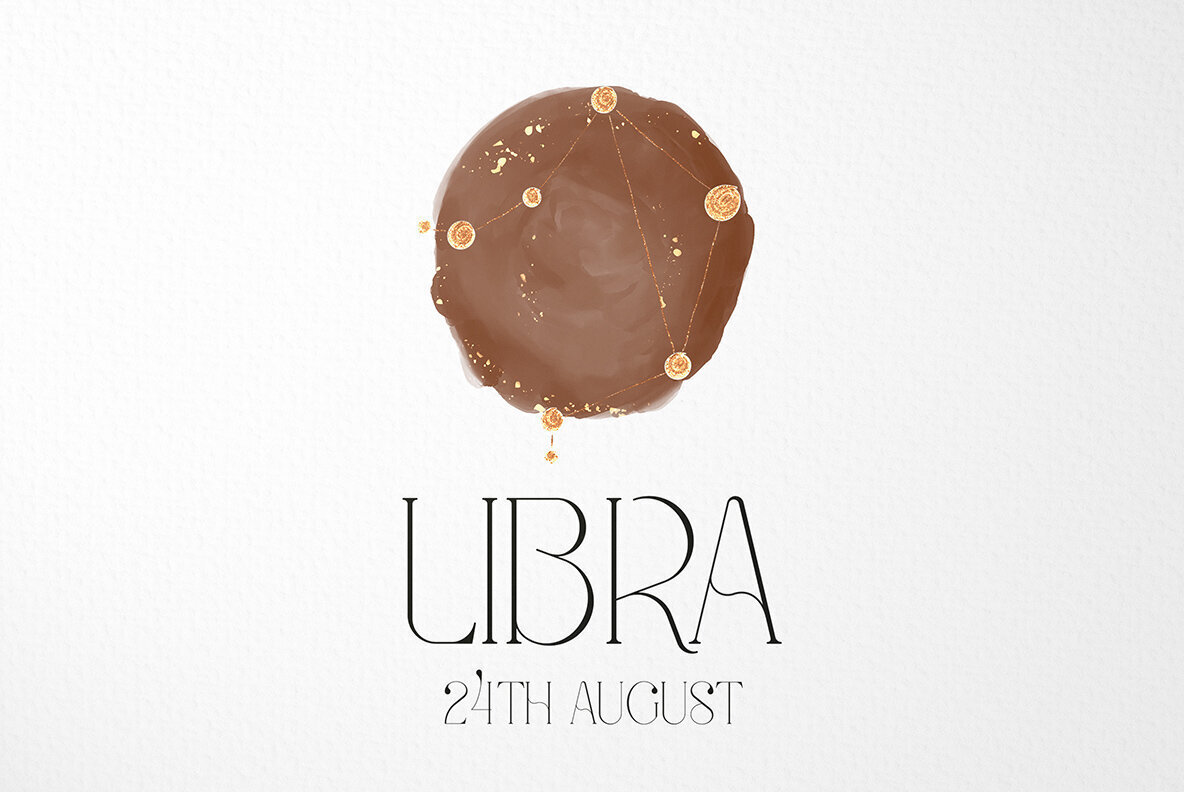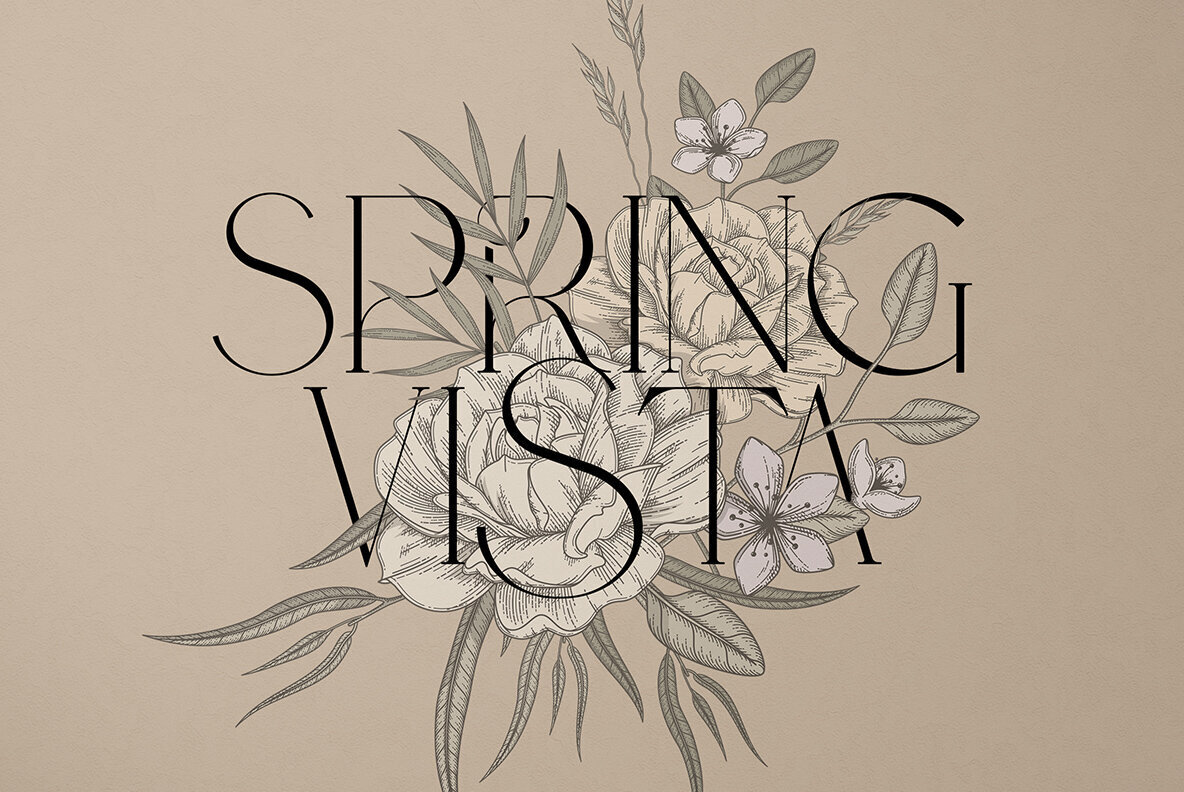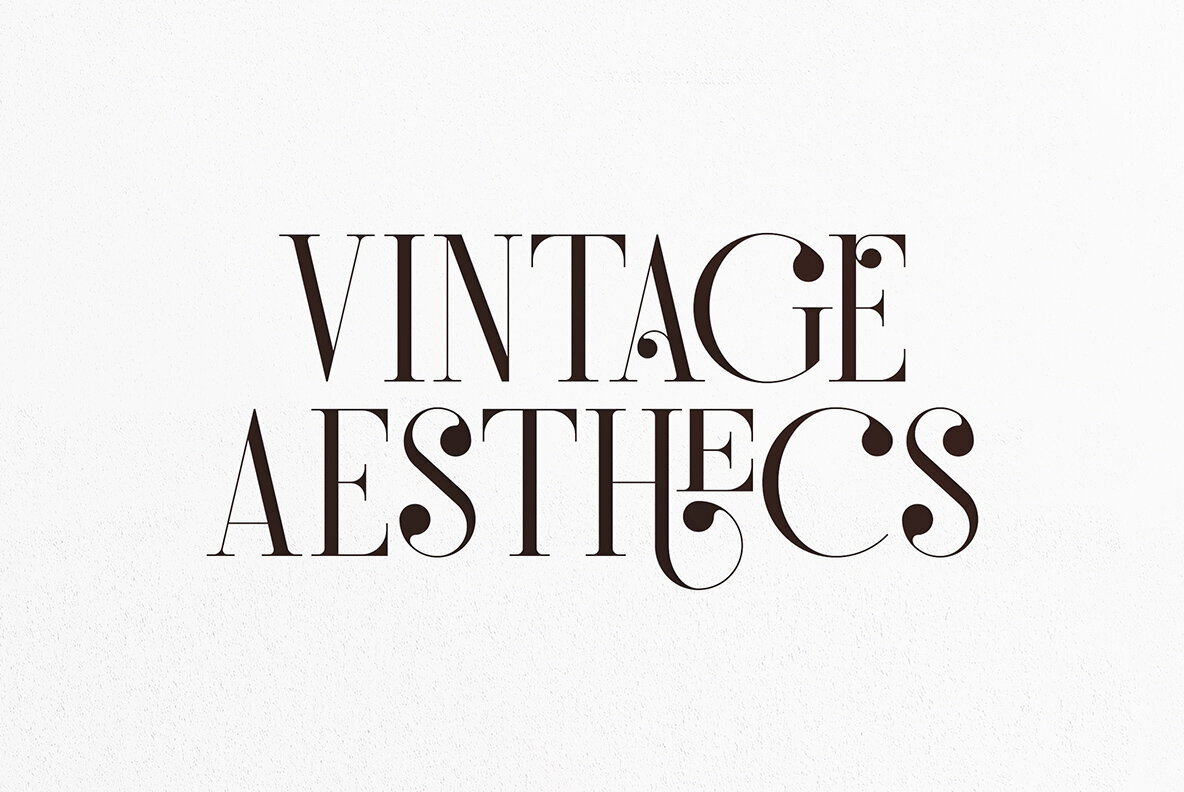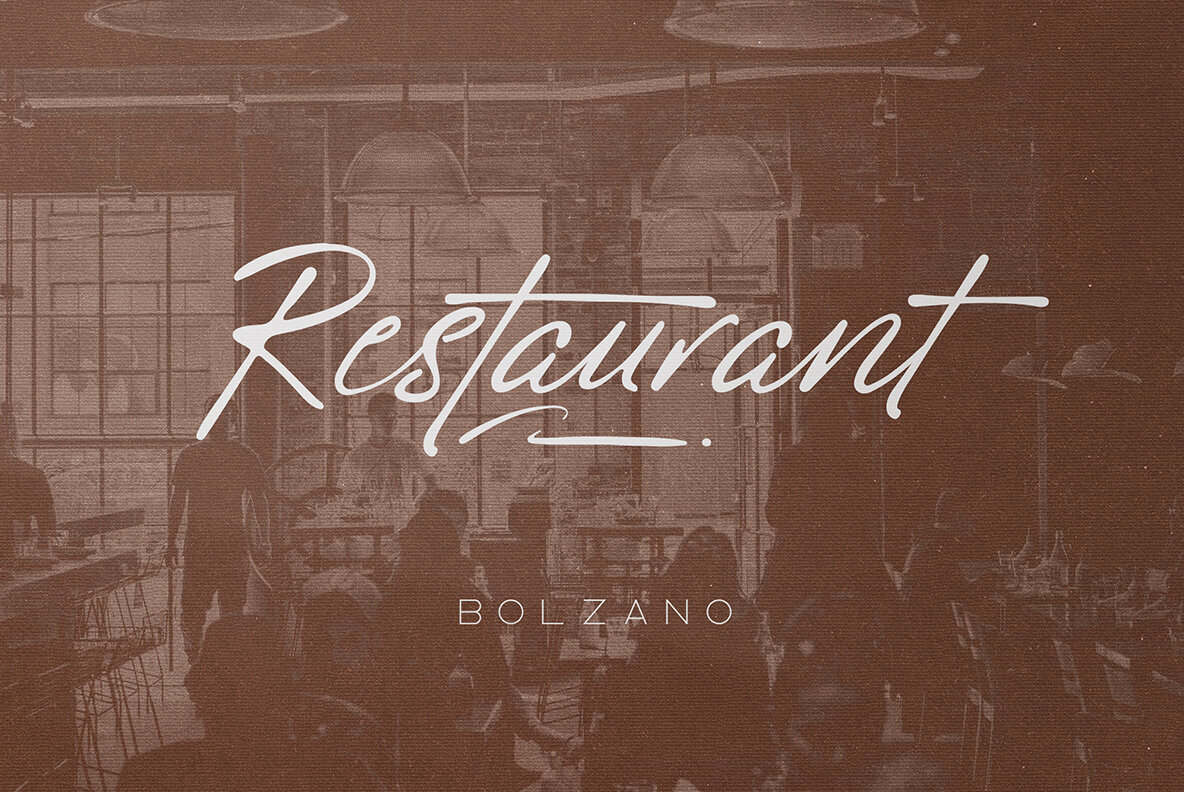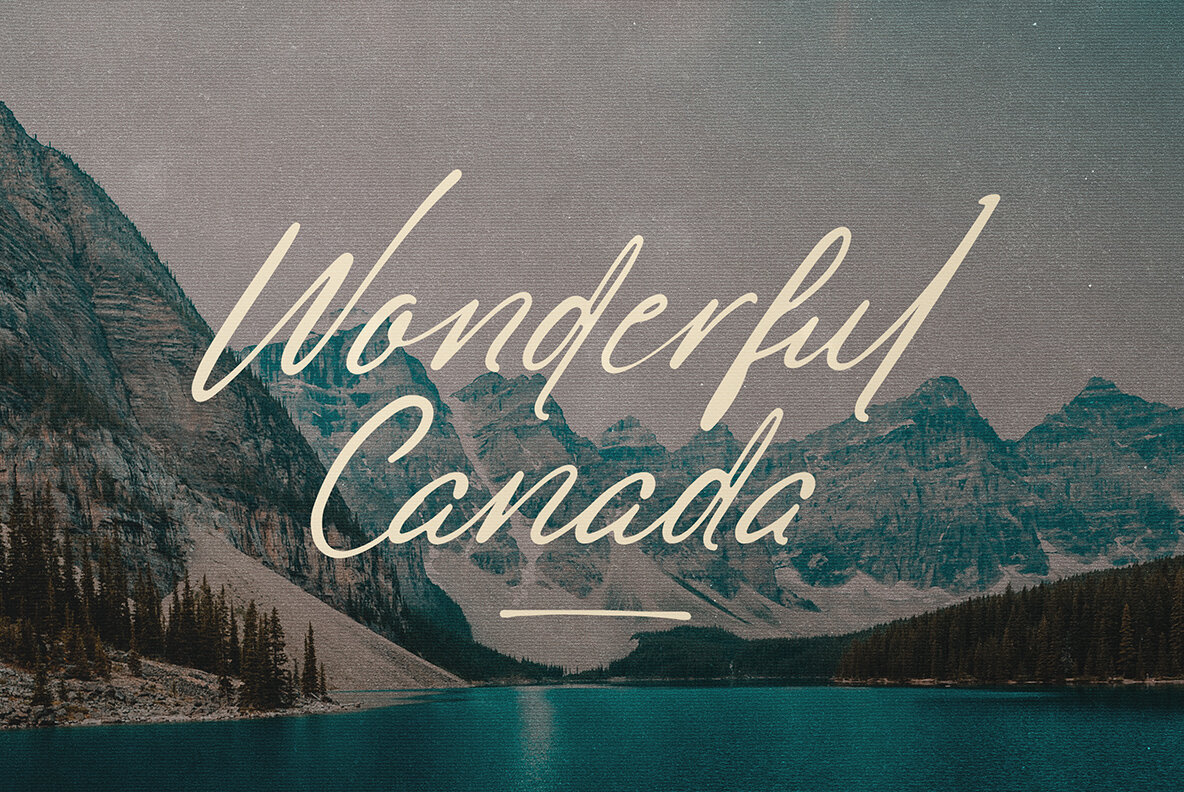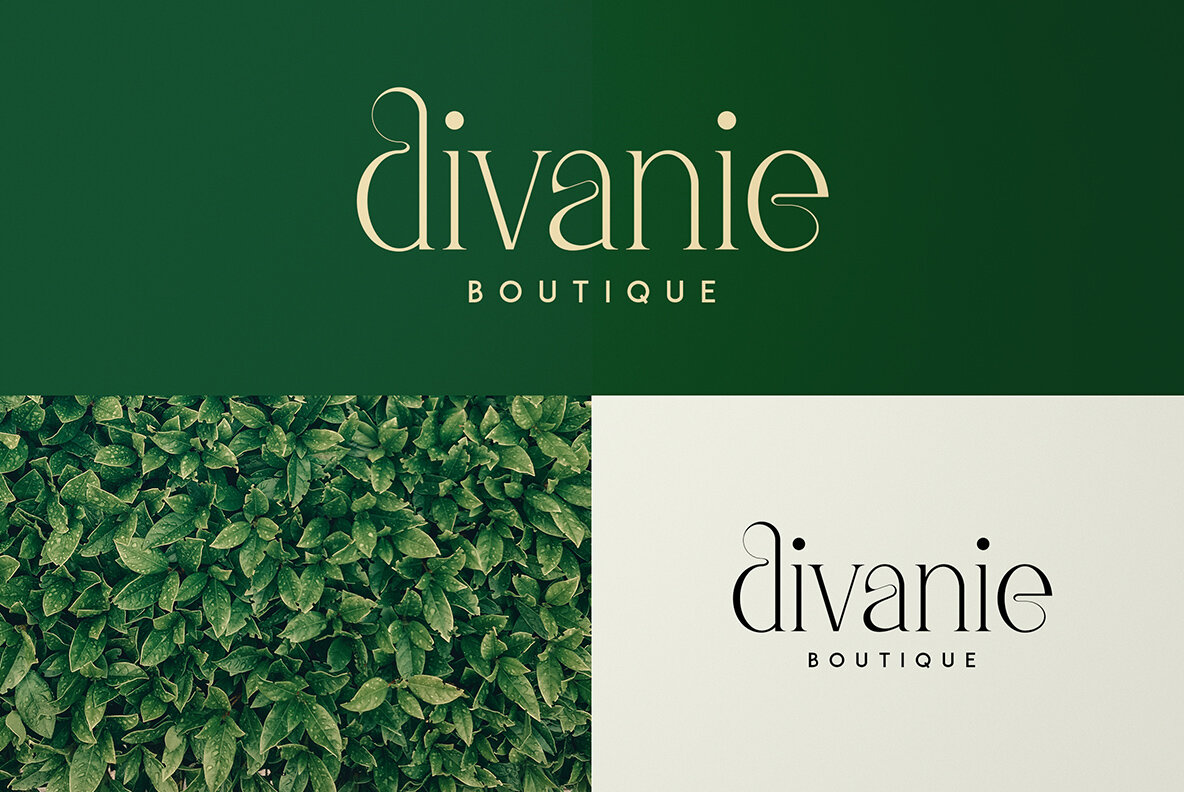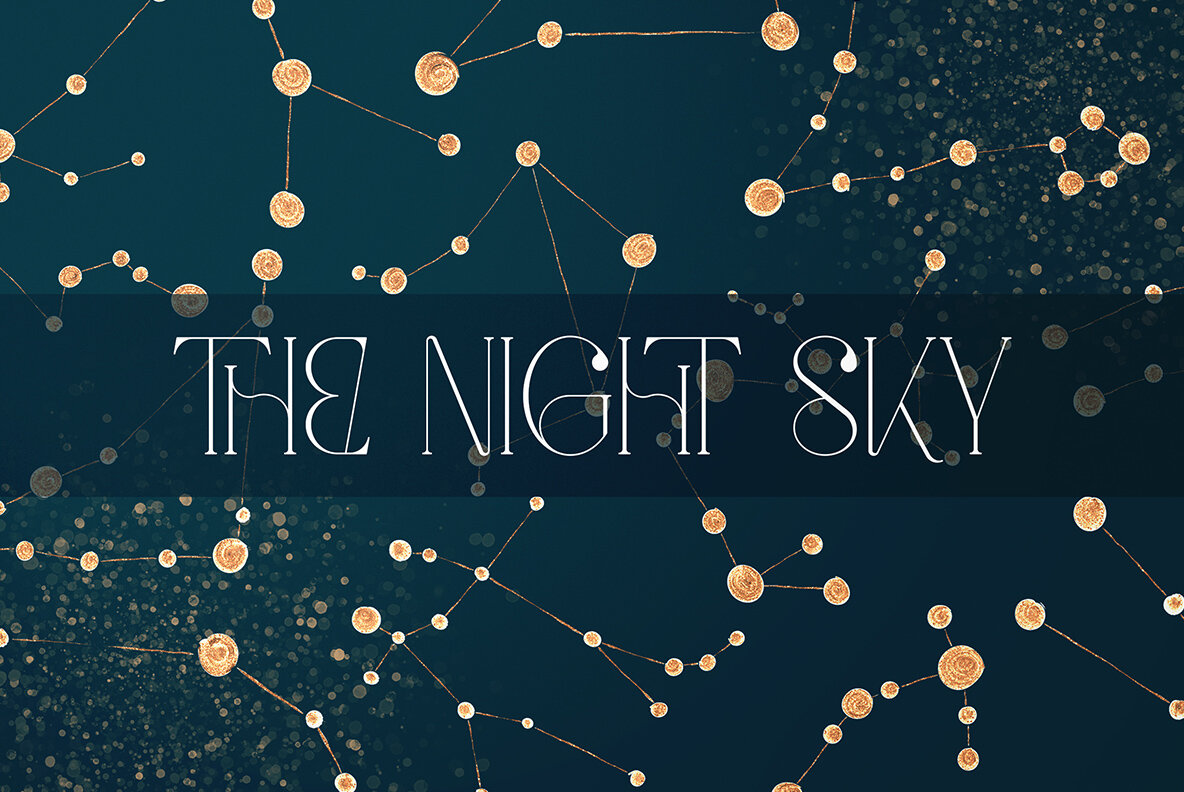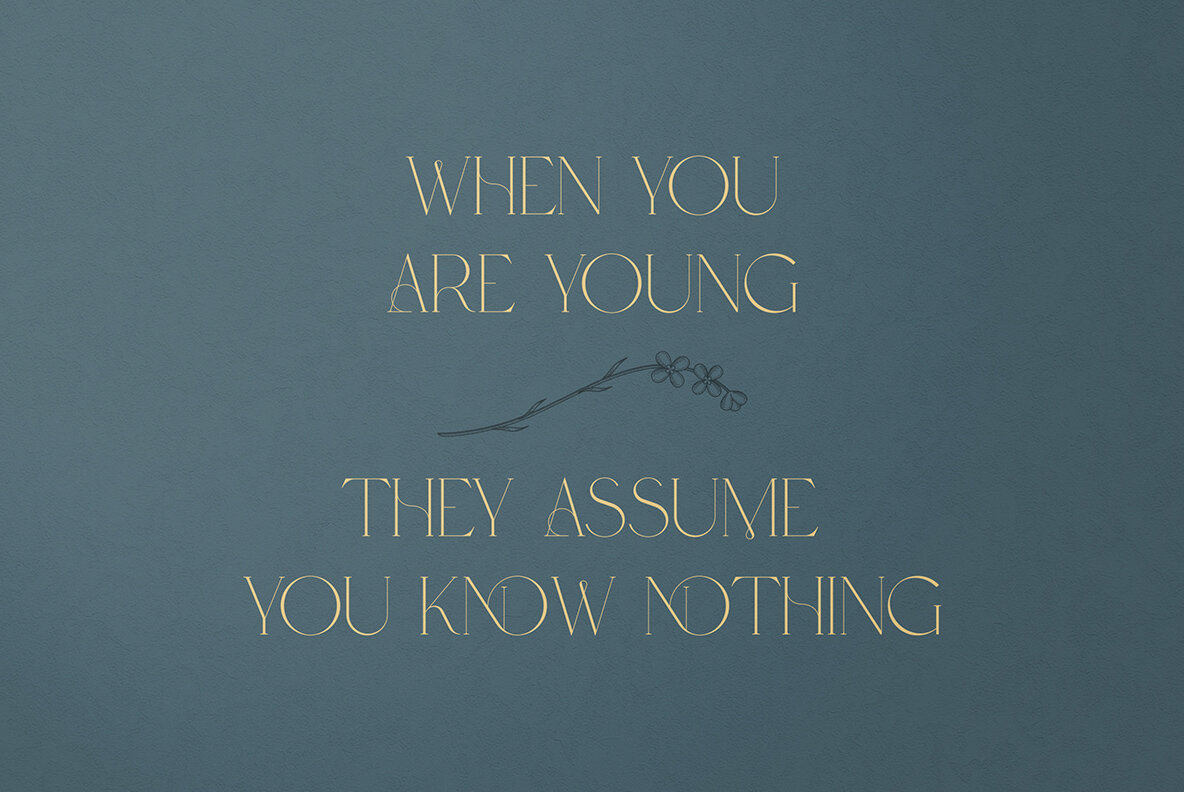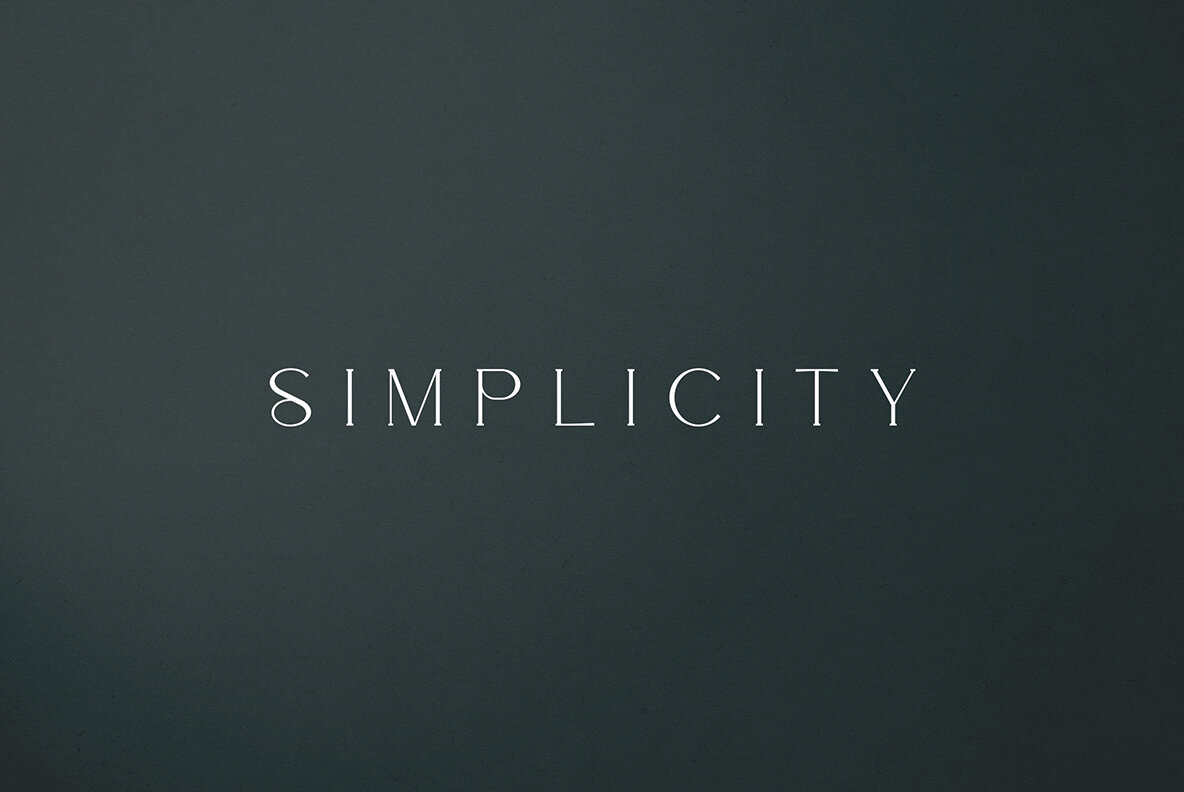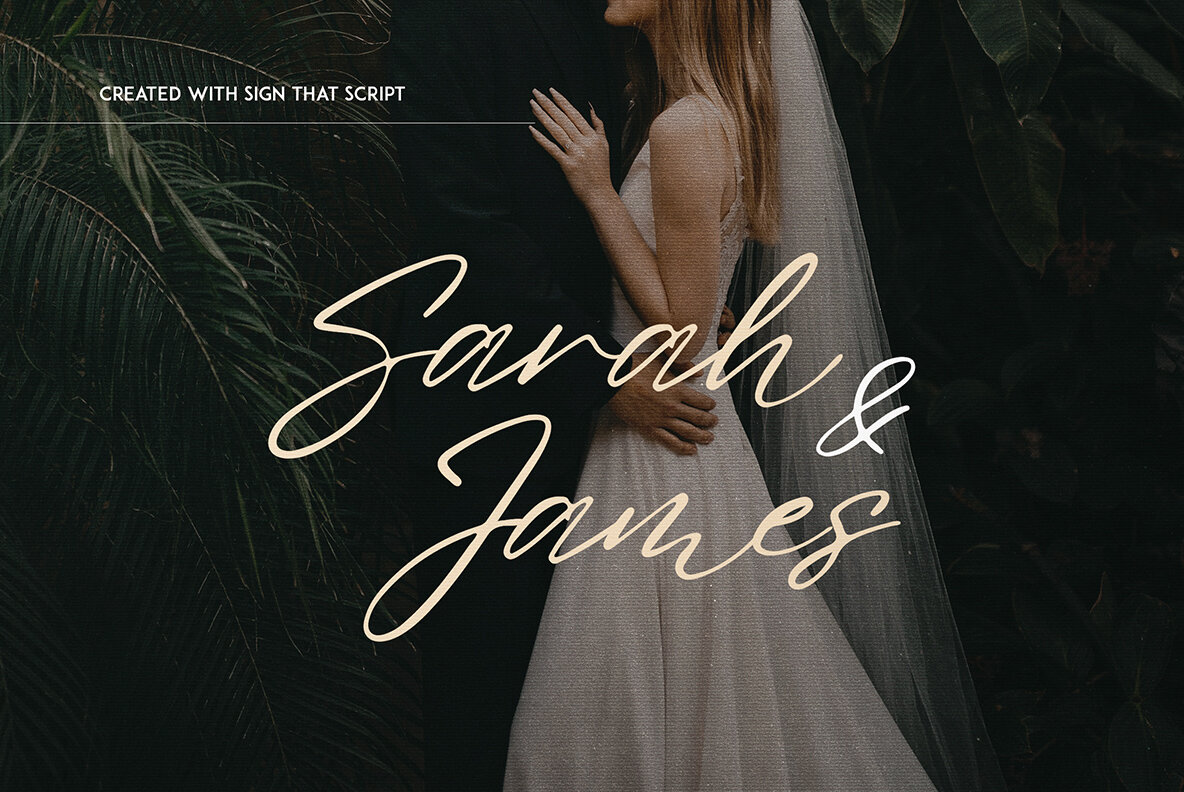
Fedotov Amazing Font Bundle
This collection contains 12 carefully crafted products with typefaces and graphic elements! Every font supports 95 languages, including Cyrillic. Some of the fonts have swirls, swashes, graphic elements ( floral, astral, abstract ).
• Stolen Love - Elegant serif typeface
• Probity - Creative serif font + more
• Stefania - Font duo + more and more
• Meraki - Display font + more
• Hidden Gem Serif + Cyrillic and more
• Malinger - Elegant Serif Font
• Salve - Elegant Serif + Cyrillic
• Redmark - Elegant serif font
• Sign That - Signature font
• Kalissa Script - Latin and Cyrillic
• Radian Horizon Handwritten Script
• Marbella Script - 3 weights